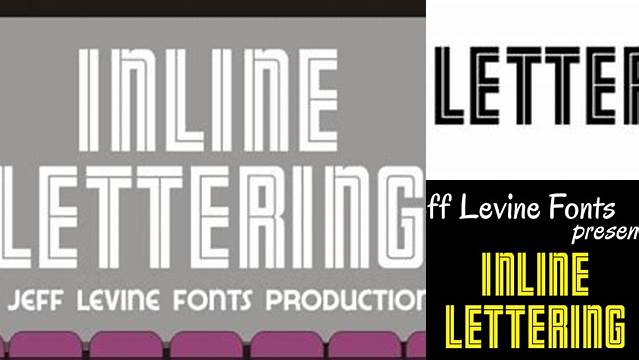
Hey everyone! If you're on the hunt for a super cool and versatile font, look no further than the Inline Lettering JNL font. This font is a fantastic choice for tons of design projects, from crafting eye-catching logos to creating compelling social media posts. And the best part? You can get an Inline Lettering JNL font free download! This article is your ultimate guide, covering everything you need to know about this awesome font, including where to download it, how to use it, and some inspiring design ideas. So, let’s dive in, shall we?
What Makes Inline Lettering JNL Font So Special?
First off, what exactly is the Inline Lettering JNL font? Well, it's a unique typeface characterized by its sleek, modern aesthetic with a distinctive inline effect. This means the letters have an inner outline, creating a sense of depth and visual interest. This makes it stand out from the crowd! This font was created by the talented Jeff Levine, a designer known for his incredible fonts. Jeff Levine's work is always top-notch, so you know you're getting a high-quality font. The Inline Lettering JNL font is perfect for a wide range of applications. Whether you're working on a branding project, designing a website, or just creating some fun graphics, this font can really elevate your designs. It's incredibly versatile, working well in both large headlines and smaller body text. The inline effect adds a touch of sophistication and style that's hard to beat. One of the coolest things about the Inline Lettering JNL font is how adaptable it is. It can look super modern and edgy, or it can be toned down for a more classic feel. It all depends on how you use it and the other design elements you pair it with. This kind of flexibility makes it a go-to choice for designers who need a font that can do it all. Imagine using it for your business cards, your website header, or even for creating cool merchandise. The possibilities are seriously endless! Also, the font's clean lines and unique inline style make it incredibly readable, even at smaller sizes. This is a big plus, especially if you're using it for headings or important text where clarity is key. So, if you are looking for a font that's both stylish and functional, the Inline Lettering JNL font is definitely worth checking out. It has the potential to take your designs to the next level and really impress your audience. You are in for a treat, this font will definitely be your new favorite!
Design Ideas and Inspiration for Inline Lettering JNL Font
Let's get those creative juices flowing! The Inline Lettering JNL font is a fantastic choice for a wide range of design projects. Here are some design ideas and inspiration to get you started. This font really shines in creating logos. The inline effect gives it a unique, modern look that helps your brand stand out. Think about using it for your business name or slogan. You can pair it with a simpler sans-serif font for body text to create a professional and balanced look. Inline Lettering JNL works wonders in headings. Use it to create attention-grabbing headlines on your website or in your marketing materials. The clean lines and unique inline style make it easy to read, even at larger sizes. Experiment with different colors and sizes to achieve the desired effect. Social media graphics are another area where this font excels. Design eye-catching posts for Instagram, Facebook, or other platforms. Use it for quotes, announcements, or call-to-actions. The inline effect will definitely catch the eye of your audience, making your content more engaging. Consider using the font for website design. Use it for headings, navigation menus, or even for small blocks of text. The font's versatility makes it a perfect choice for creating a modern and clean website layout. Think about using this font for designing print materials like brochures, flyers, and posters. The font's readability and unique style will make your printed materials stand out and leave a lasting impression. When creating posters or flyers, you can also experiment with different sizes, colors, and backgrounds. The font can be paired with bold images and contrasting colors to create a visually stunning design. The font is also a great choice for creating invitations and greeting cards. Whether you are designing invitations for a wedding or a birthday party, the unique style of the font will give your cards a touch of elegance and modernity. Remember, the key to using the Inline Lettering JNL font effectively is to experiment and have fun. Try out different color combinations, sizes, and styles to see what works best for your project. Don't be afraid to play around with different layouts and design elements. The font's versatility allows you to create a wide variety of designs. The key is to let your creativity guide you and find new and innovative ways to use the Inline Lettering JNL font to create visually stunning designs that will impress your audience.
Conclusion: Unleash Your Creativity with the Inline Lettering JNL Font
Alright, we've covered a ton of ground! You now know all about the Inline Lettering JNL font free download, including where to get it, how to install it, how to use it, and some awesome design ideas. The Inline Lettering JNL font is an incredibly versatile and stylish font that can take your designs to the next level. Remember to always respect the licensing guidelines and to download from reputable sources. With its unique inline effect and modern aesthetic, this font is perfect for logos, headings, social media graphics, and so much more. So go out there, download the font, and start creating amazing designs! Experiment with different colors, sizes, and layouts to see what works best for you. Don't be afraid to try new things and push the boundaries of your creativity. Happy designing!